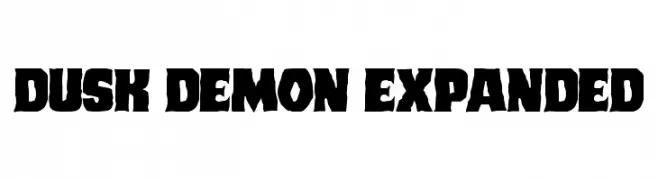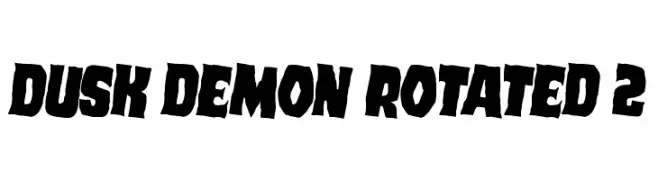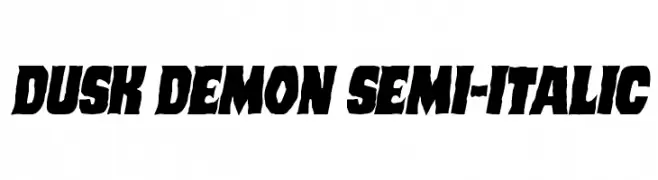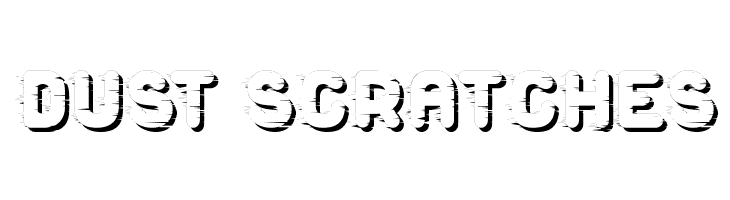
A bold, rugged font with thick, uneven strokes and dynamic character shapes.
A bold, italic, and expanded font with a dynamic and modern style.
A bold, dynamic font with a unique gradient effect created by horizontal lines.
A bold, italicized font with a gradient effect and dynamic, striped design.
A bold, italic font with a dynamic and edgy style.
A bold, distressed font with thick, irregular strokes and a dynamic, edgy style.
A bold, slanted, and dynamic font with sharp, angular edges.
A bold, rugged font with jagged edges and a distressed look.
A bold, rugged font with a dynamic, graffiti-like style.
A bold, semi-italic font with a rugged and dynamic style.